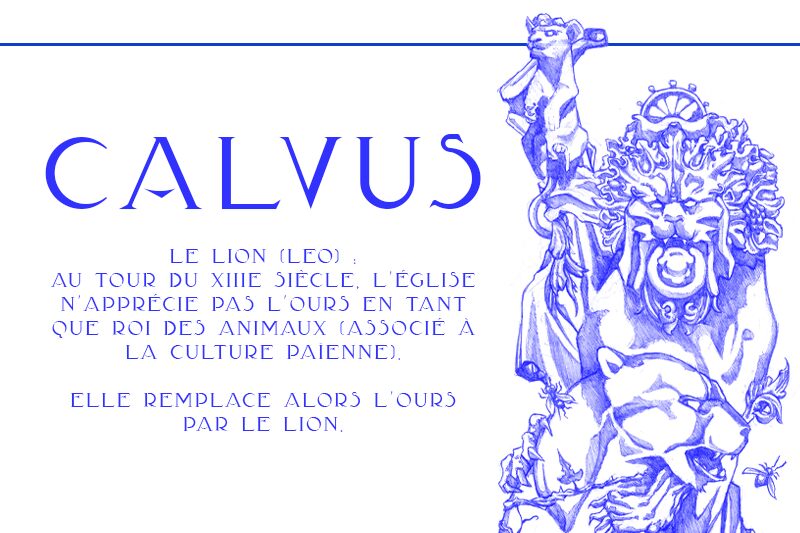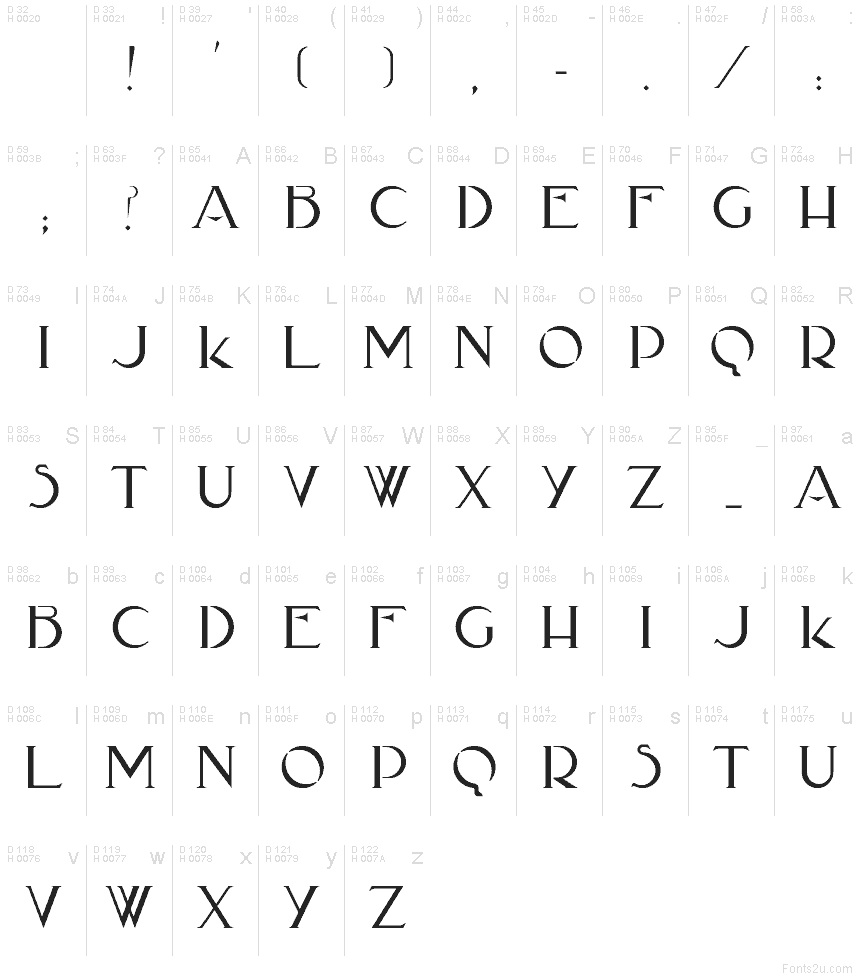
Calvus font by Yann Pralat is a free retro stencil typeface. Drawn from Chaumont’s carved inscriptions and tuned with lean Art Deco proportions, it carries crisp cutaways and smooth, stone-like curves that feel both historic and modern. The gaps aren’t gimmicks-they sculpt rhythm, letting light pass through the letters so words breathe while staying bold and legible.
Using Calvus, headlines take on a refined, architectural presence-think museum posters, wine labels, luxury packaging, boutique signage, editorial covers, and travel prints. Its steady spacing keeps titles calm even at large sizes; add a touch of tracking and it sings. Pair this free font with a clean geometric sans for supporting text to anchor its elegant flair.
Yann Prélat
Calvus
La Calvus s'inspire des inscriptions présentes dans l'architecture de Chaumont, d'où elle tire son nom, qui signifie "chauve" en référence à "calvus mont", le mont chauve. Cest un mélange entre forme antique et proportion art déco le tout en pochoir.